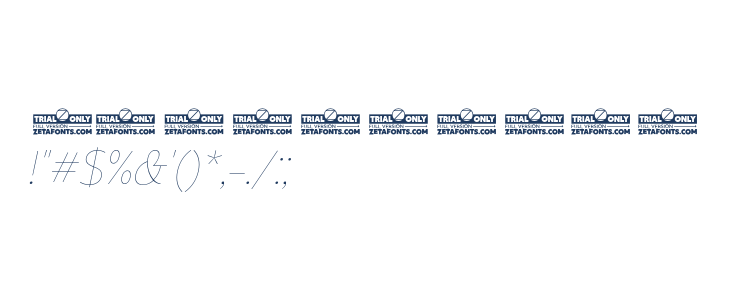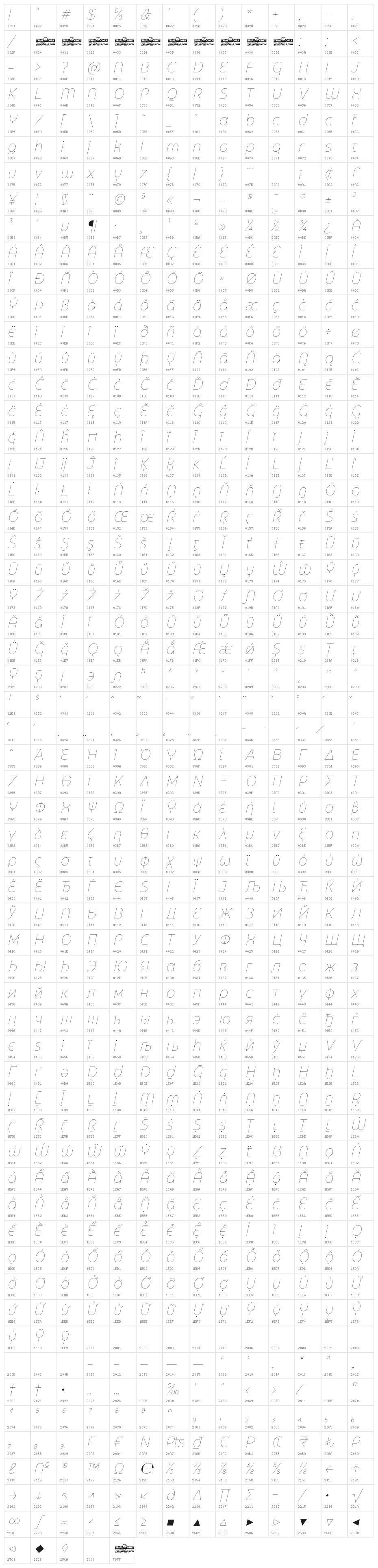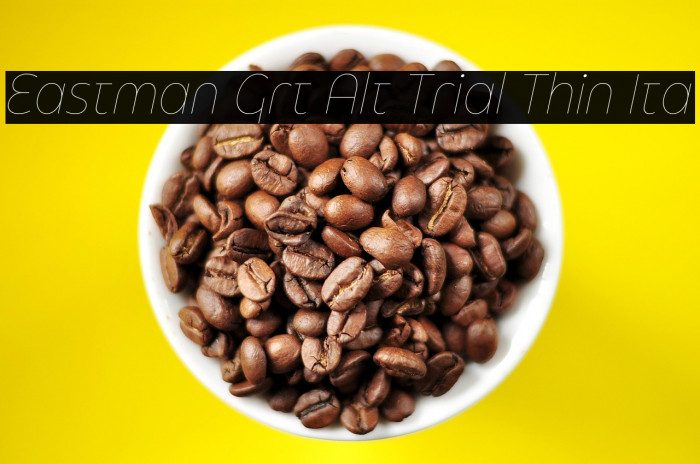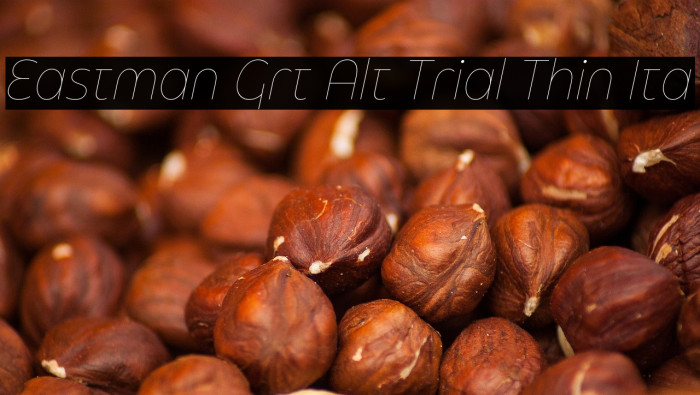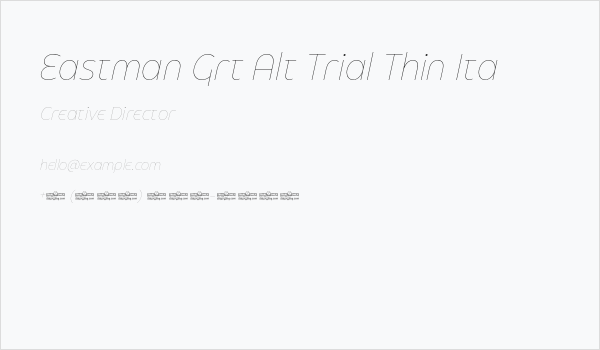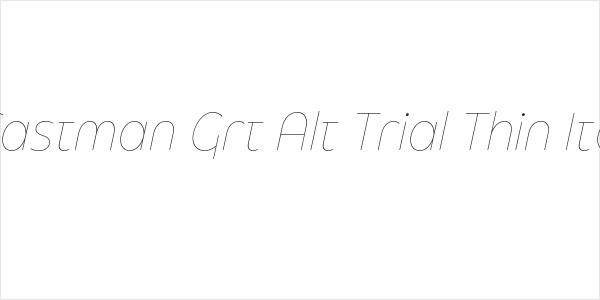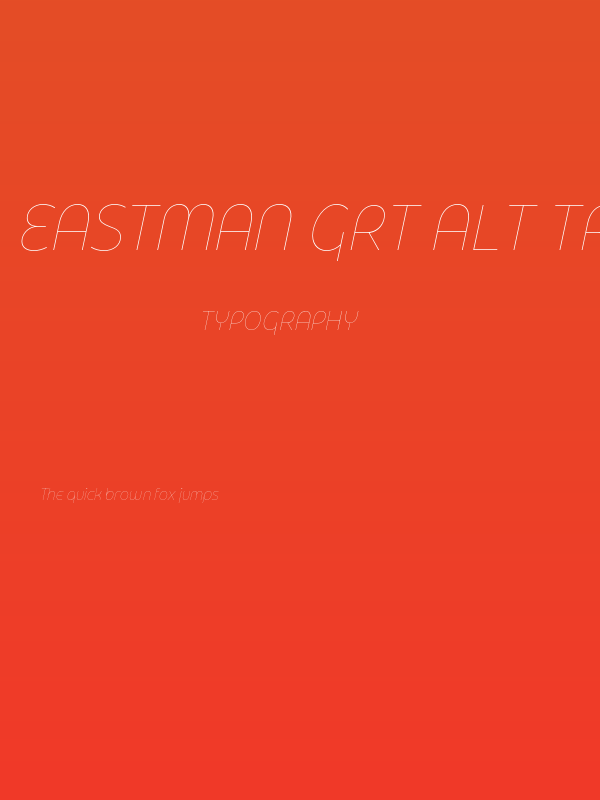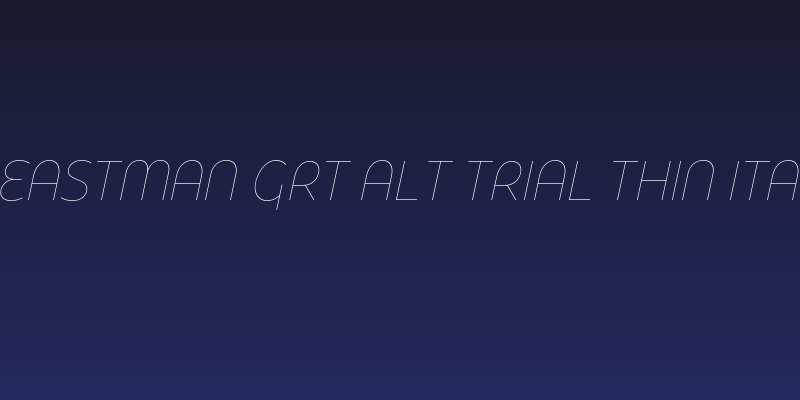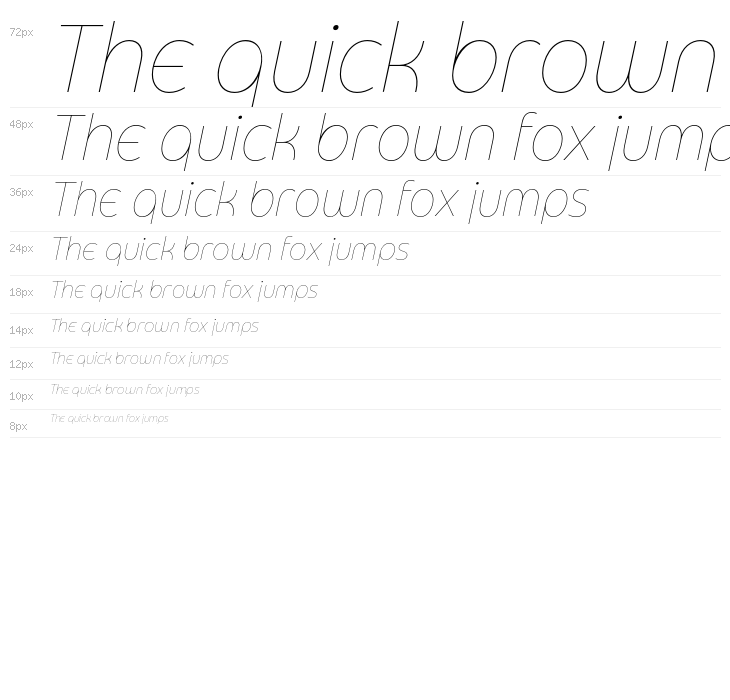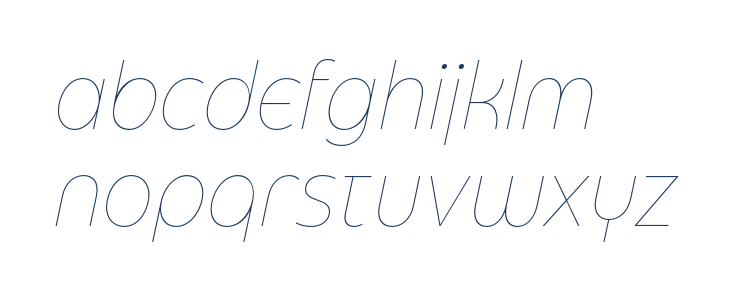
Eastman Grt Alt Trial Thin Ita Font
Eastman Grt Alt Trial Thin Ita Description
This font exhibits a sleek and modern design with a thin, elegant stroke. The characters are slightly italicized, giving a sense of motion and fluidity. The uppercase and lowercase letters maintain a consistent style, with smooth curves and minimalistic lines. The numerals and special characters are designed to match the overall aesthetic, ensuring a cohesive look across all text. This font's thin weight and clean appearance make it suitable for contemporary designs that require a touch of sophistication.